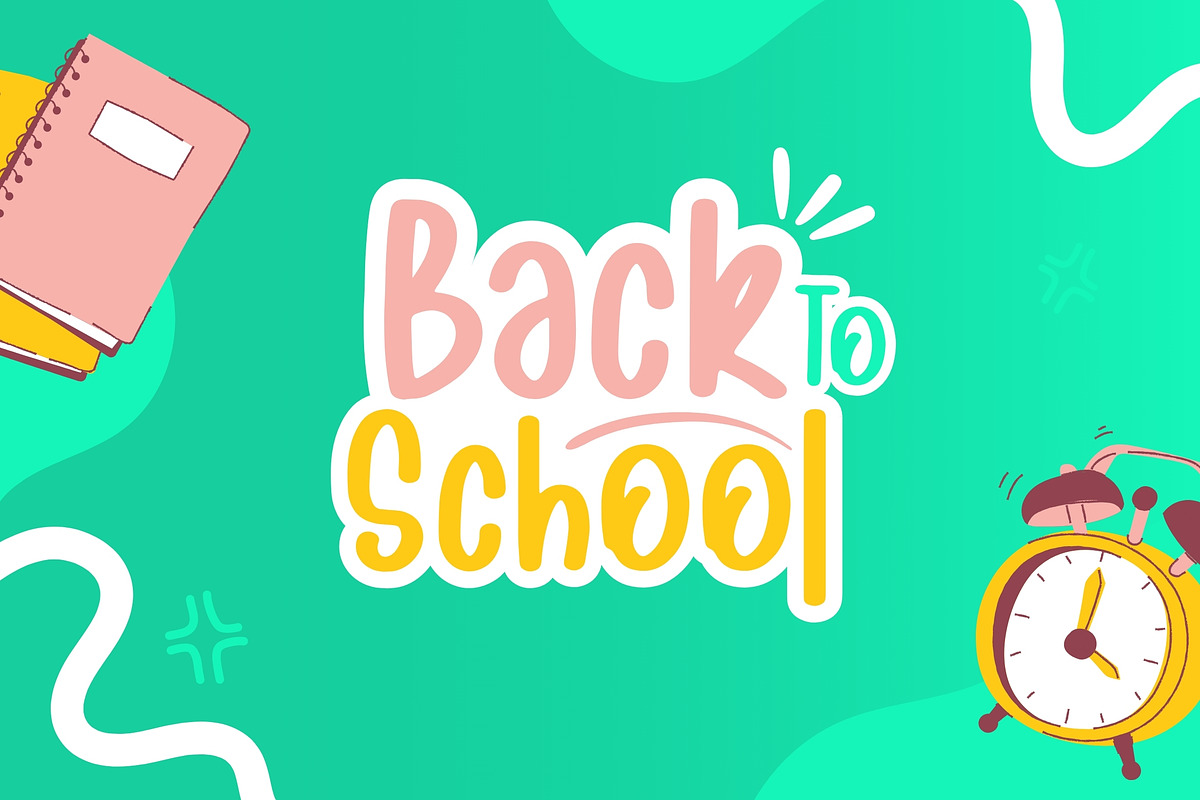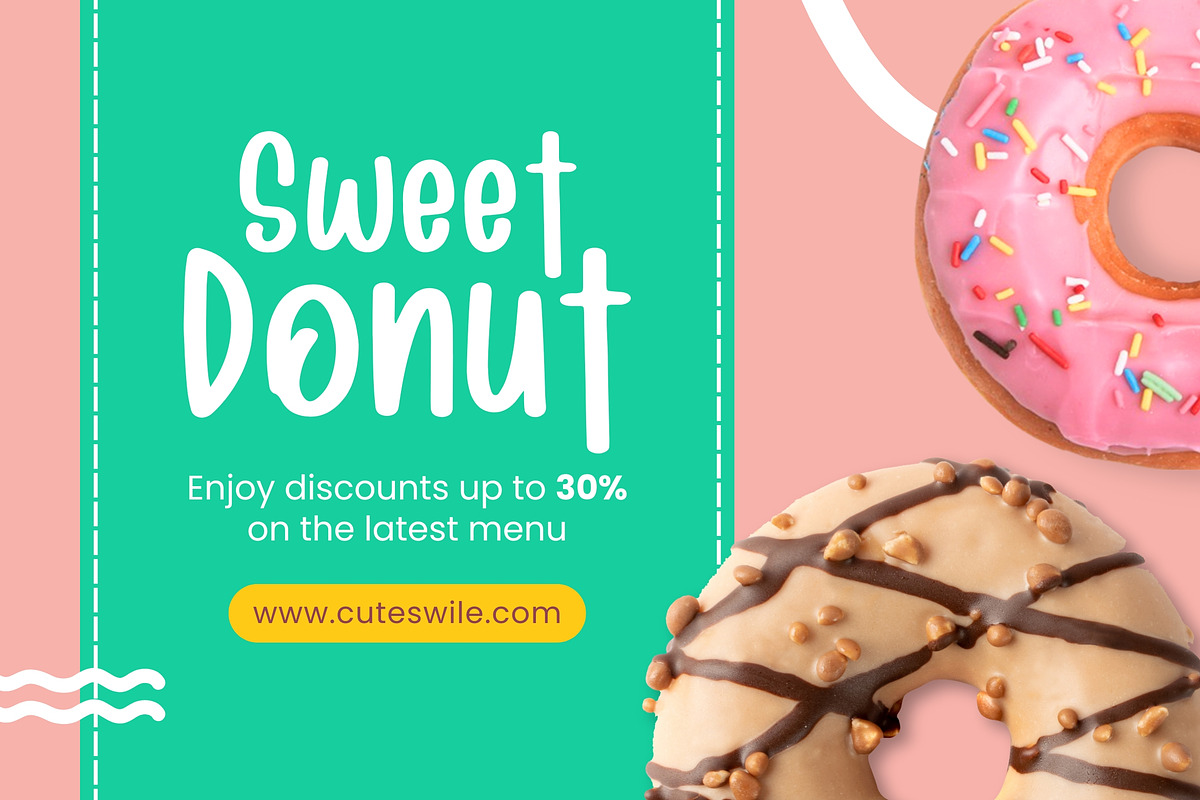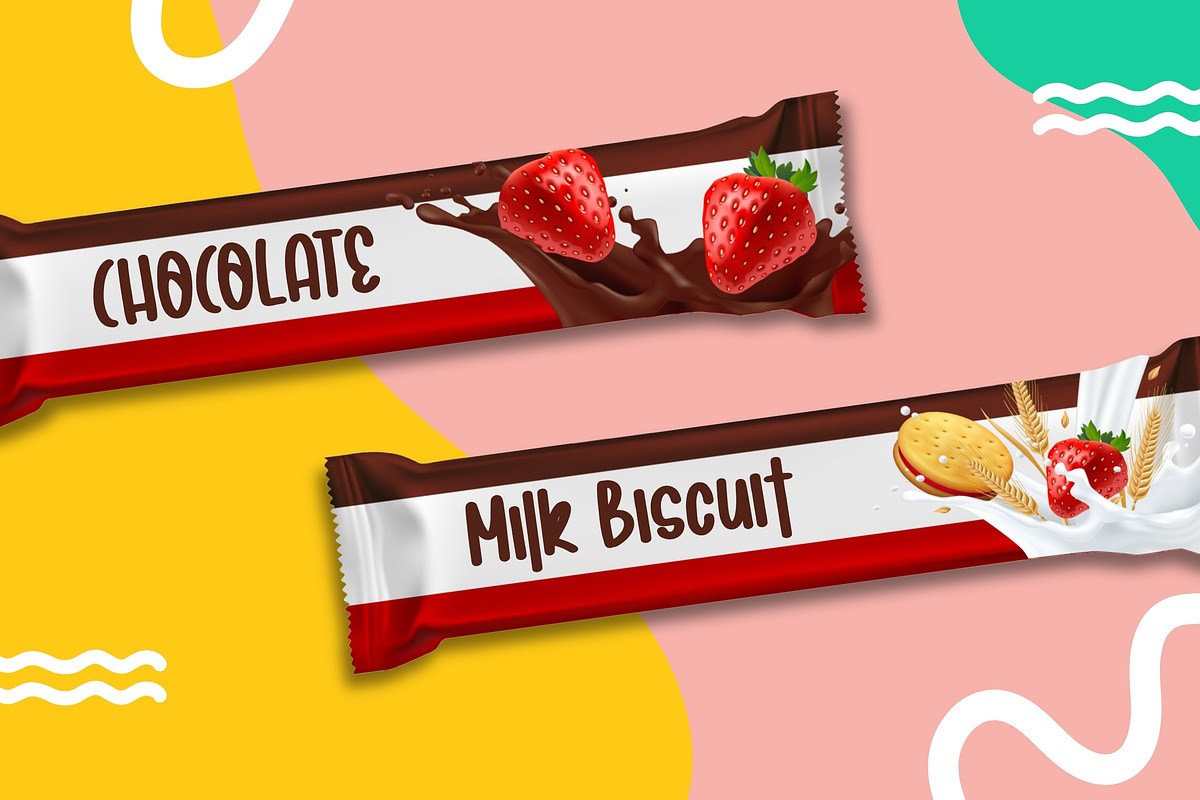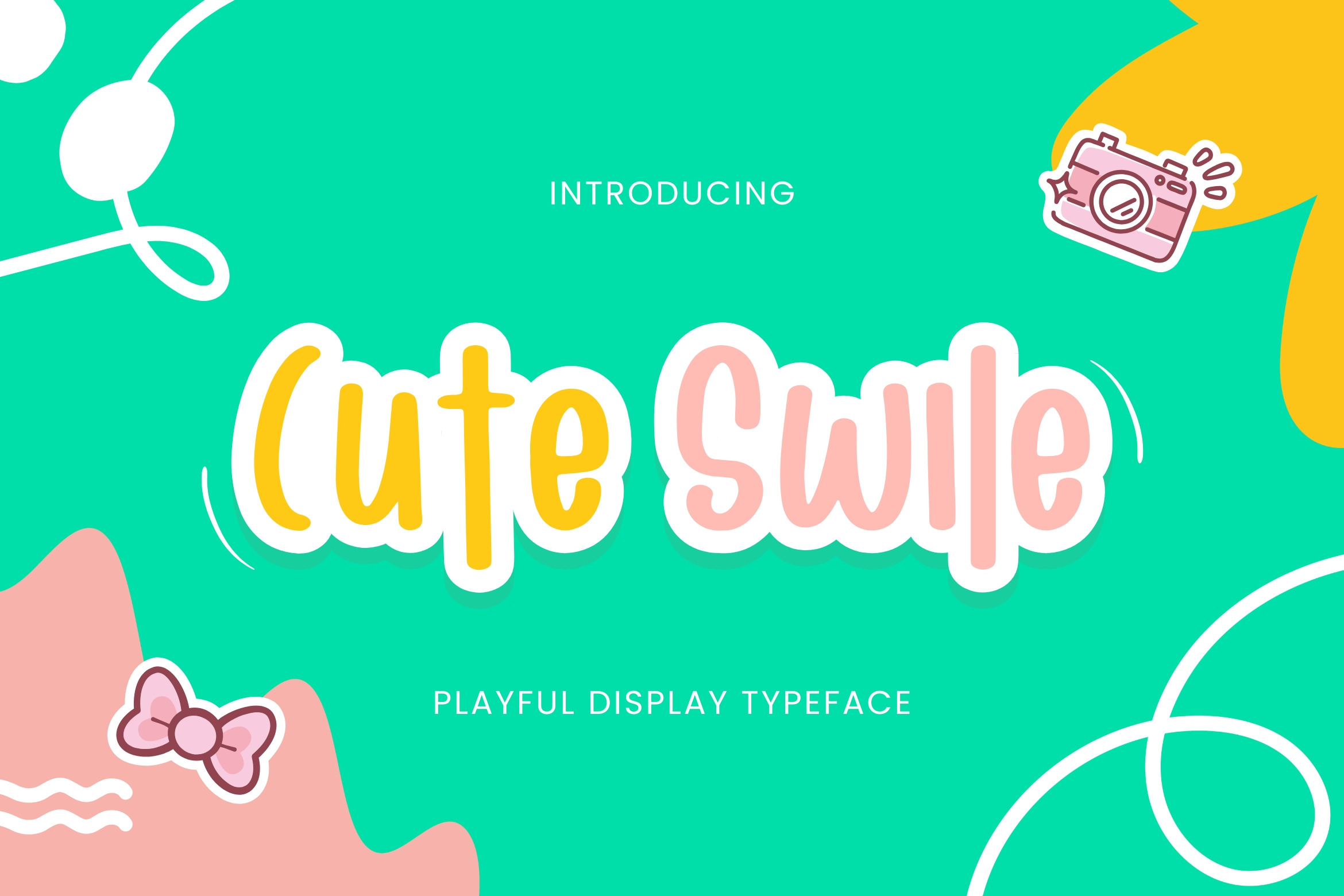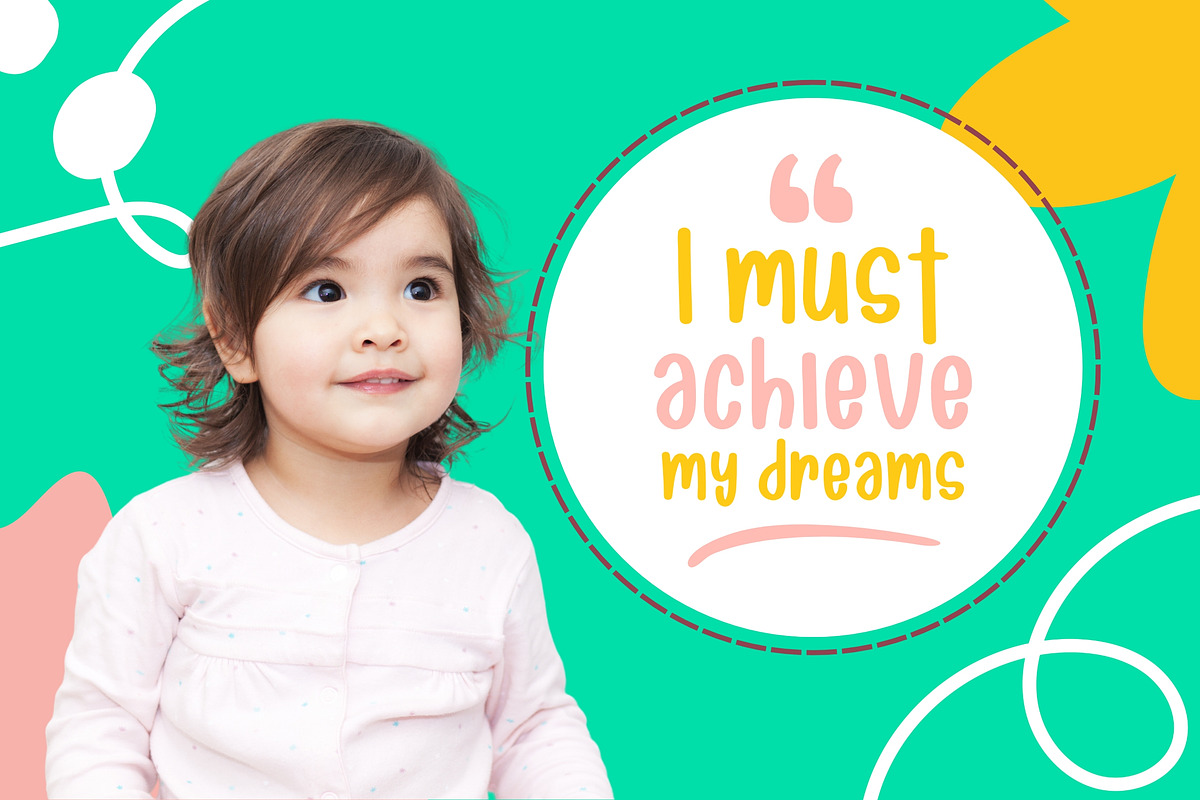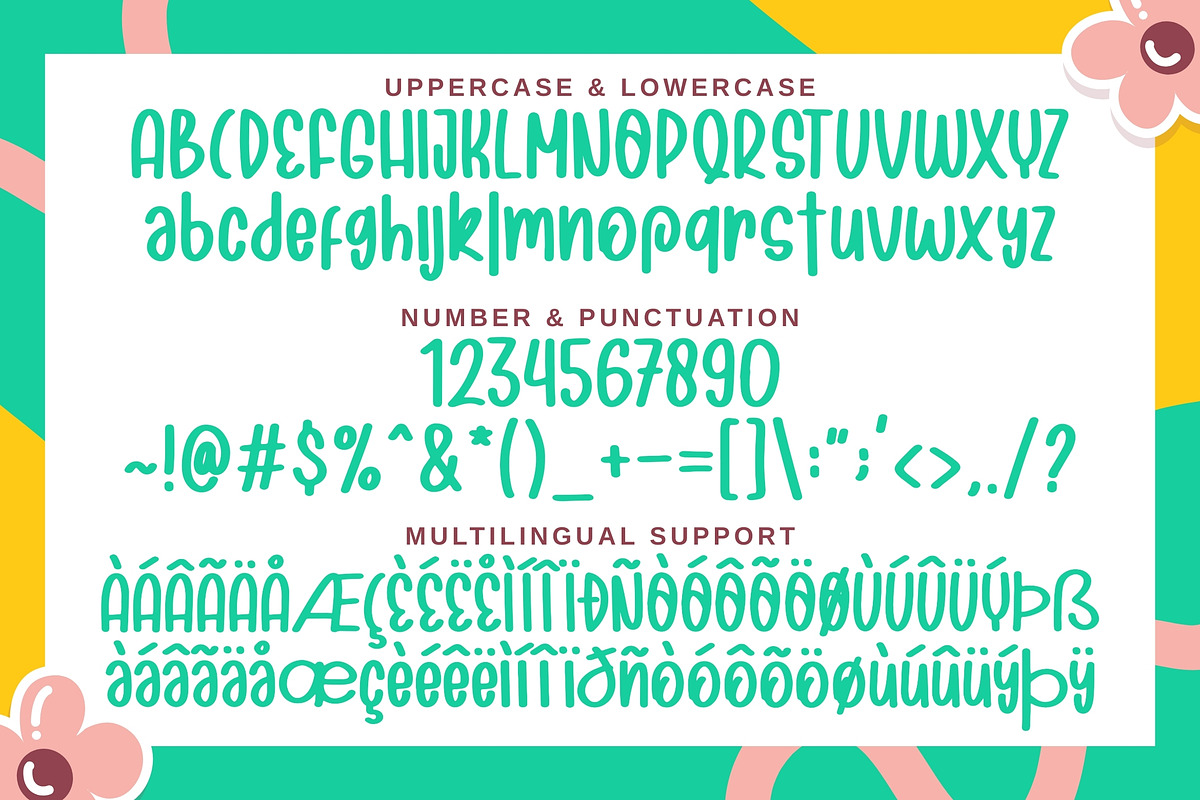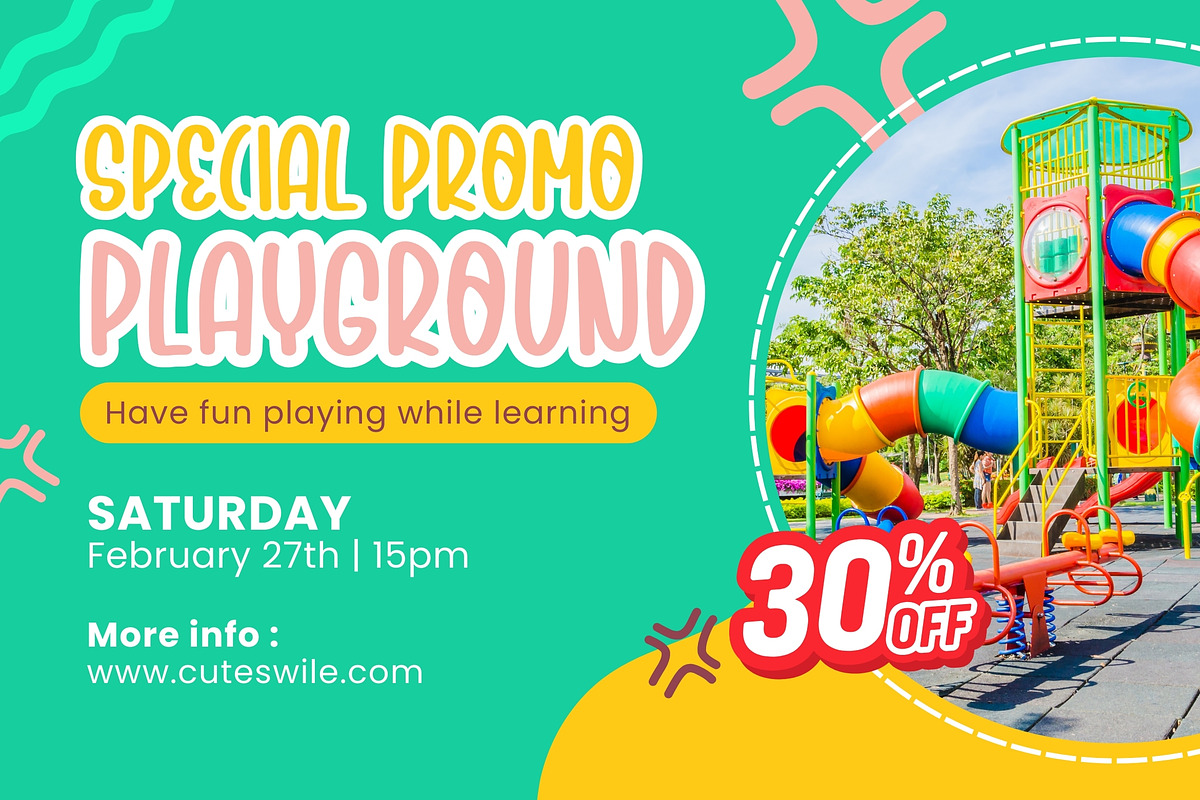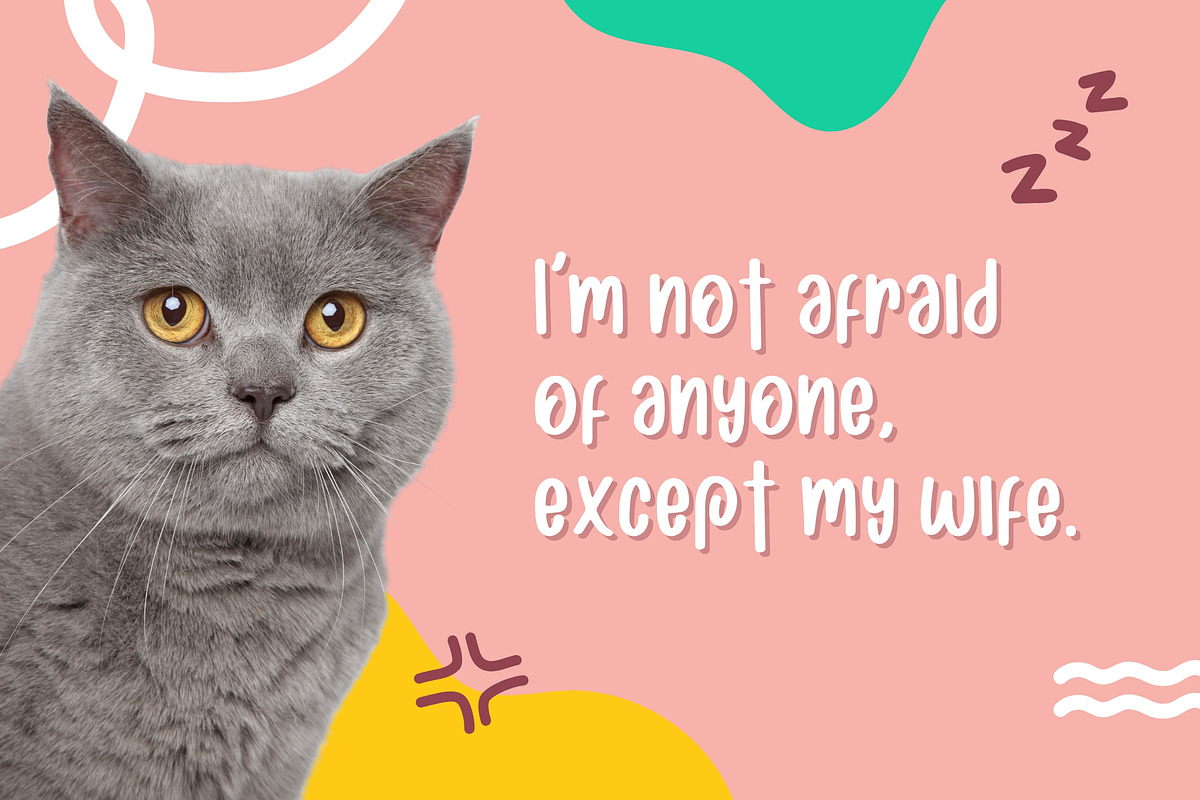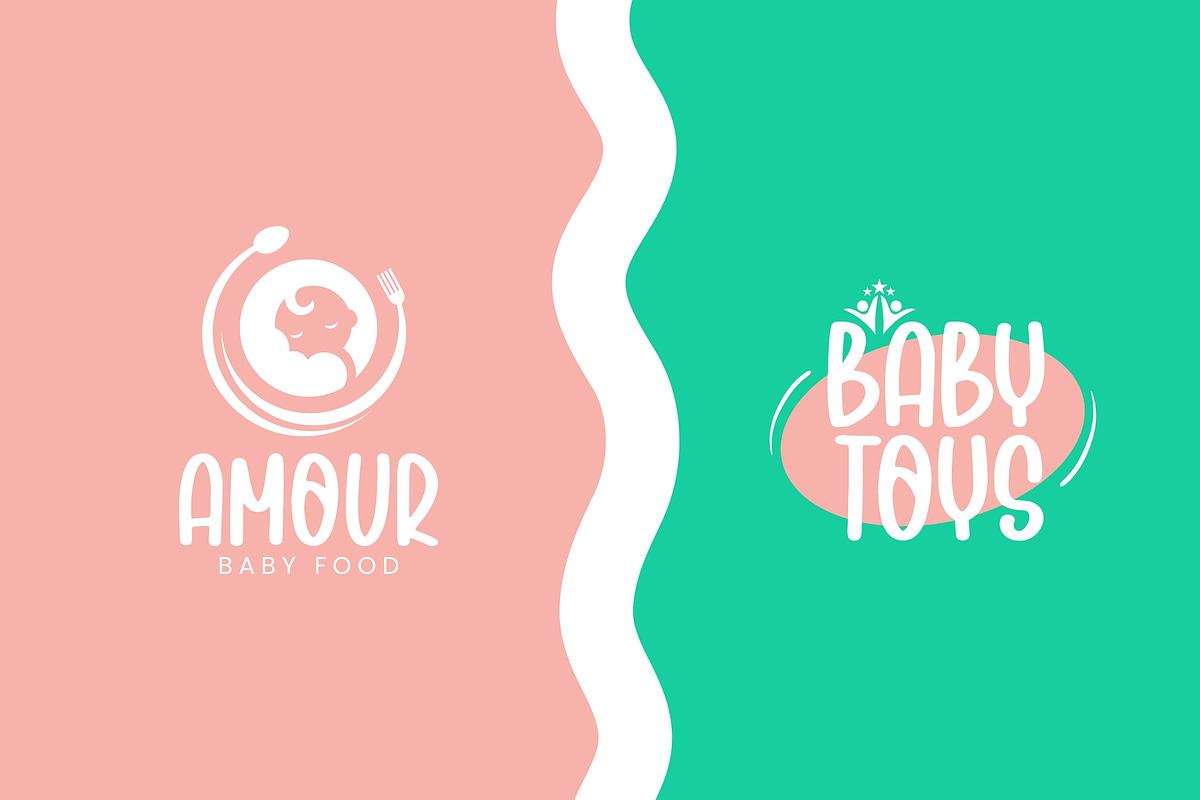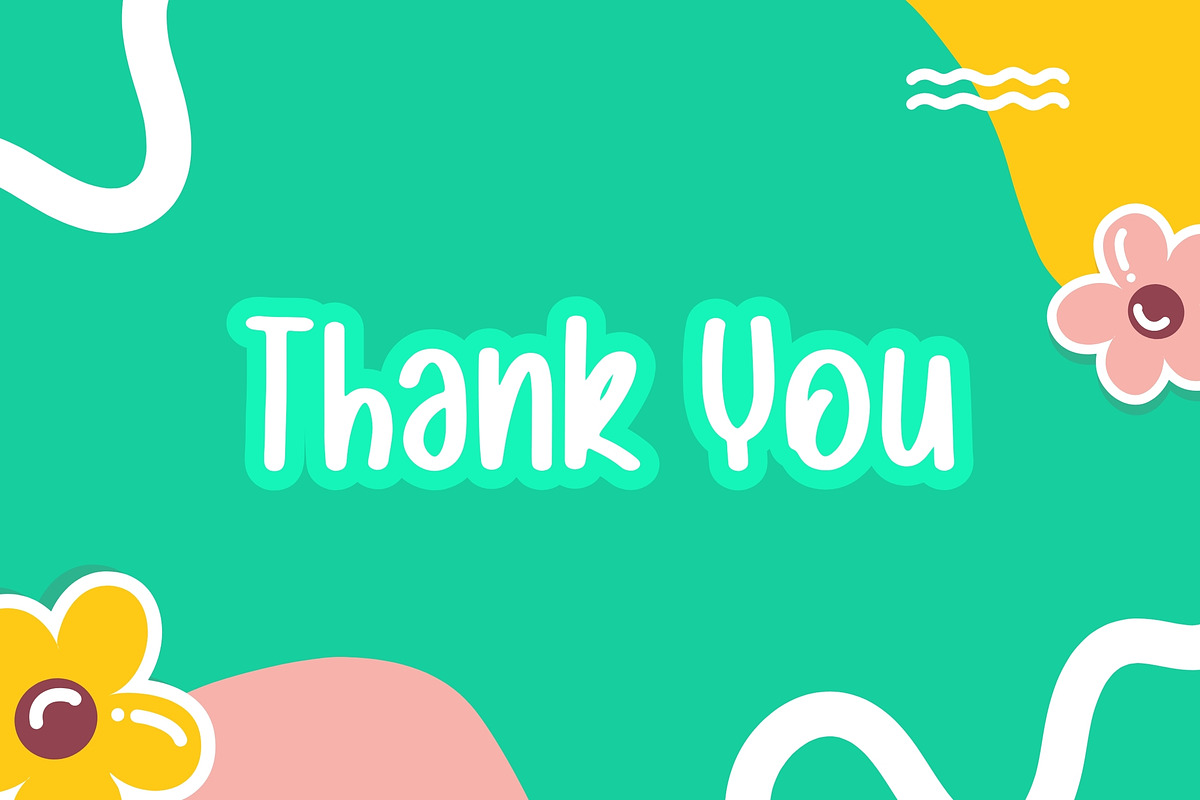
Cute Swile – Fresh & Cheerful Font
Cute Swile is a fresh and cheerful rounded font designed to bring a happy, light, and joyful feeling to kids-focused designs. With its smooth curves, playful proportions, and friendly personality, this font creates a fun visual experience that feels modern and approachable.
Cute Swile is perfect for projects that want to look bright, cute, and full of positive energy, while remaining clean and easy to read.
- Children’s books and playful reading materials
- Cute branding and packaging for kids products
- Educational designs with a fun touch
- Posters, titles, and friendly headlines
- Social media and creative kids content
- Rounded, playful, and fresh style
- Multilingual character support
- Kid-friendly and easy to read
- Suitable for print and digital use
Why Choose Cute Swile? Cute Swile helps your designs feel happy, lively, and inviting. Its clean yet playful letterforms make it ideal for designers and brands who want to communicate joy, friendliness, and creativity in children-oriented projects.